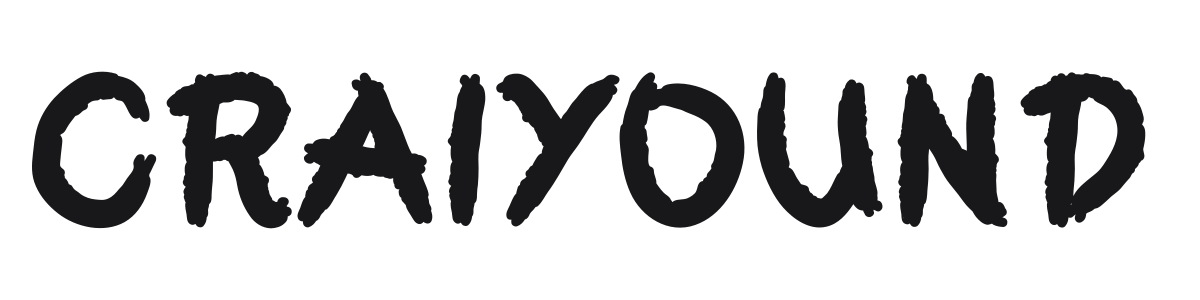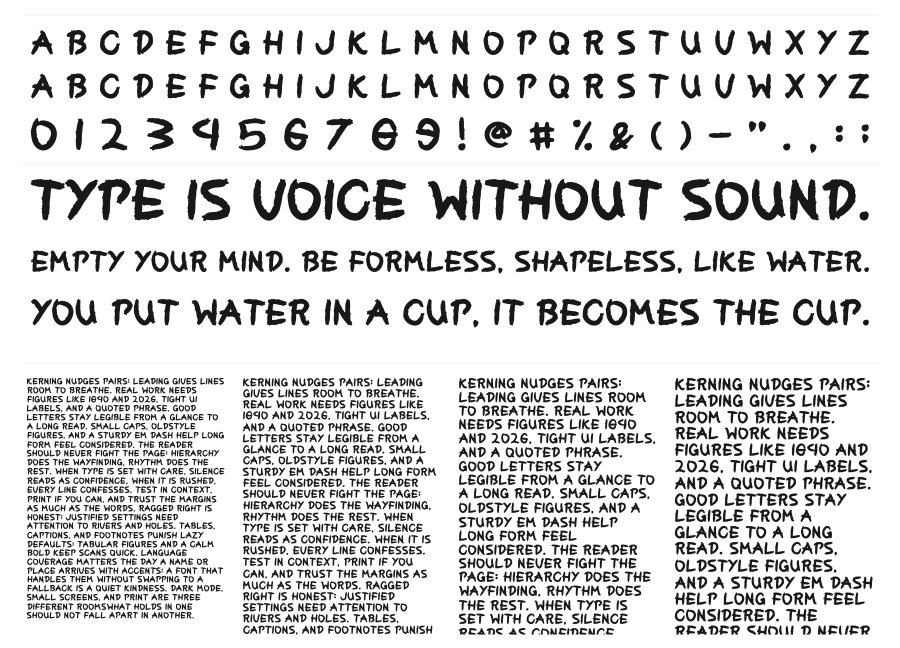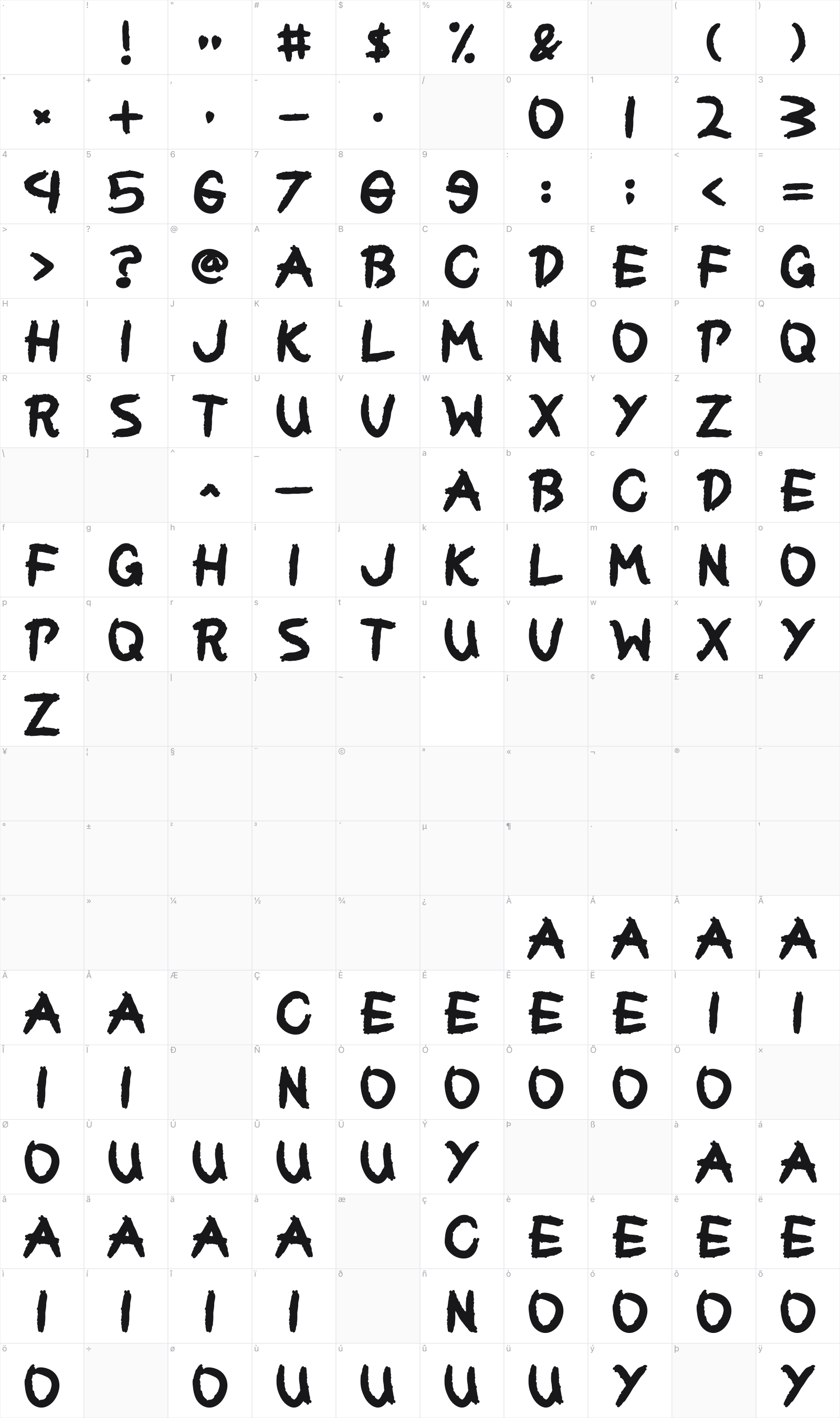
Craiyound
Craiyound is a rough brush font with heavy, jagged strokes that look like they were painted fast and hard with a dry bristle brush. The frayed edges and irregular baseline give it an authentically handmade, street-art feel. Strong for music posters, band branding, and anything that needs grit without going full blackletter.